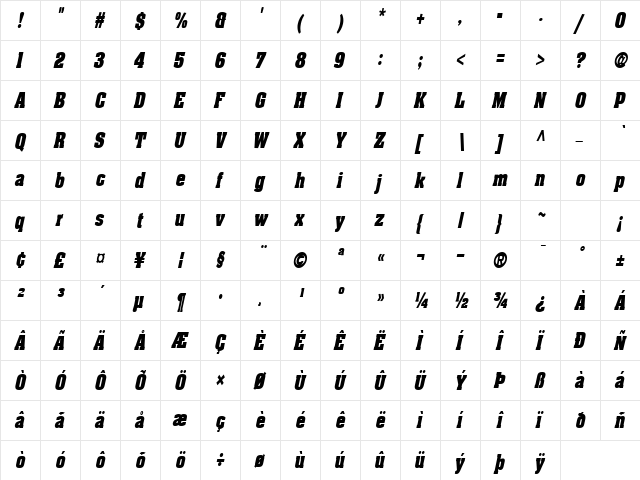
Heidelberg-Condensed Italic
Design Context for Heidelberg-Condensed Typeface
Heidelberg-Condensed takes a measured approach to typography — its balanced proportions and neutral character make it a reliable workhorse for both digital and print work. Its italic angle brings a sense of urgency and motion to the letterforms. The condensed width makes it efficient for tight spaces without sacrificing legibility.
Pro Tip: Use Heidelberg-Condensed for emphasis, pull quotes, and subheadings where its slanted energy can add rhythm to the layout.